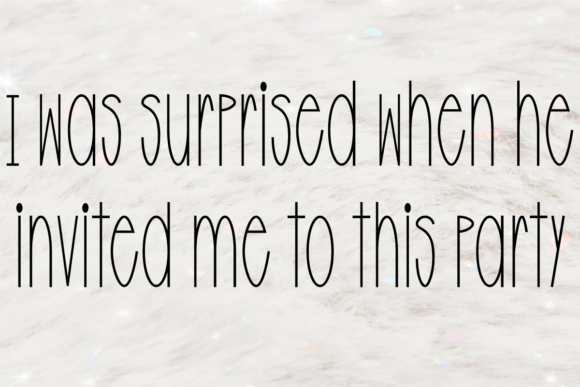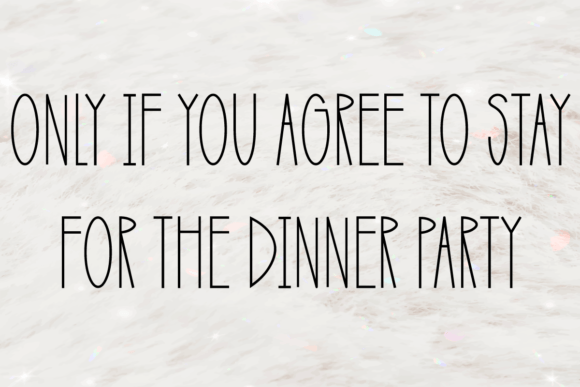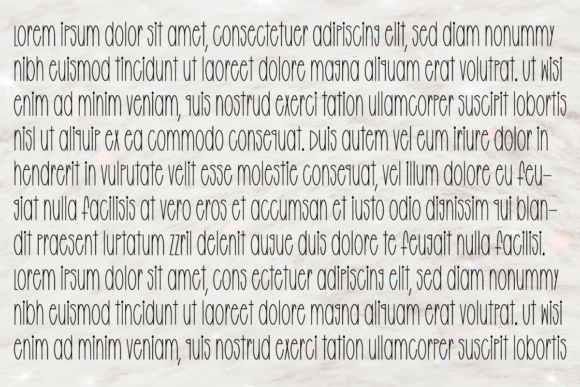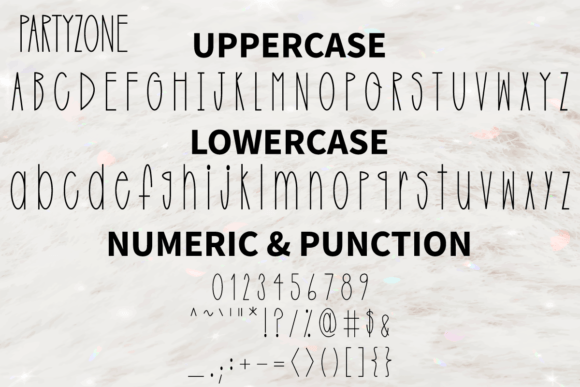
Introduction to Partyzone Font
Partyzone is a simple and friendly handwritten font.
Whimsical and a bit quirky, this font will brighten up each of your designs Add it confidently to your projects, and you will love the results.
Key Features of Partyzone Font
Why Choose Partyzone Font?
Partyzone Font offers exceptional quality and versatility, making it a valuable addition to your design toolkit. Whether you’re creating for personal projects or commercial use, Partyzone Font delivers professional results.